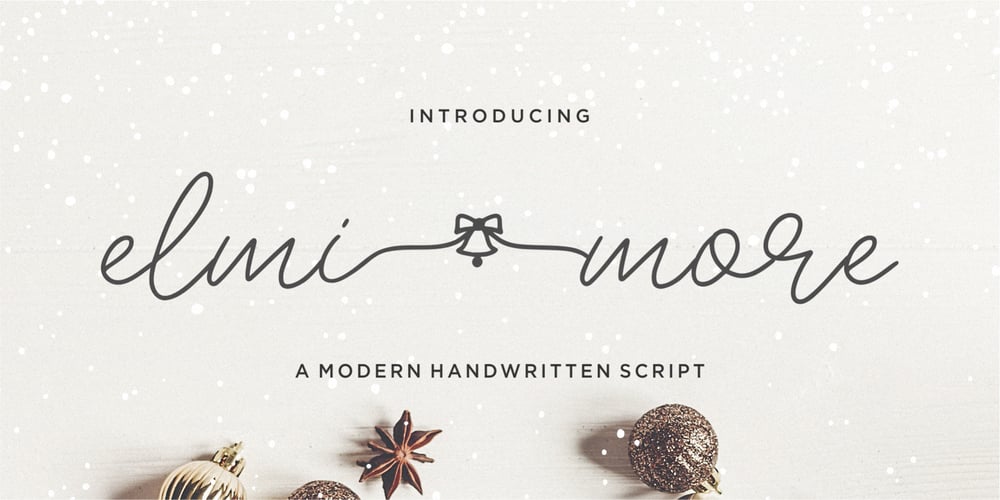
Elmimore Font Family was designed by Suhery Anto, Odies Dwi Yudhistira and published by Qwrtype Foundry. Elmimore contains 1 styles and family package options. Introducing by QwrtypeProudly Present, Elmimore is a Monoline Script with SwashElmimore is perfect for product packaging, branding project, megazine, social media, wedding, or just used to express words above the background.Elmimore also come with Multi-Lingual Support.Thank you!